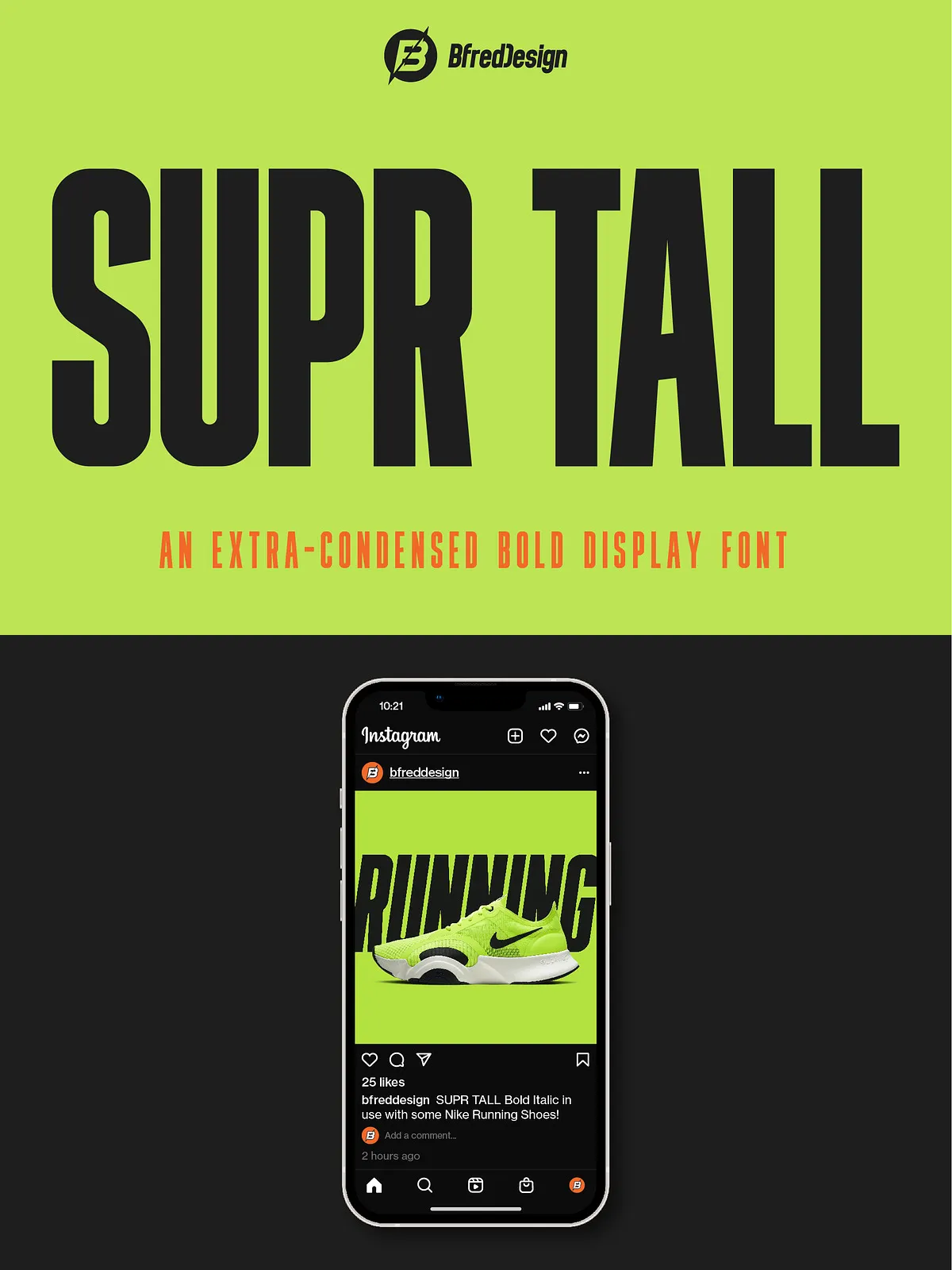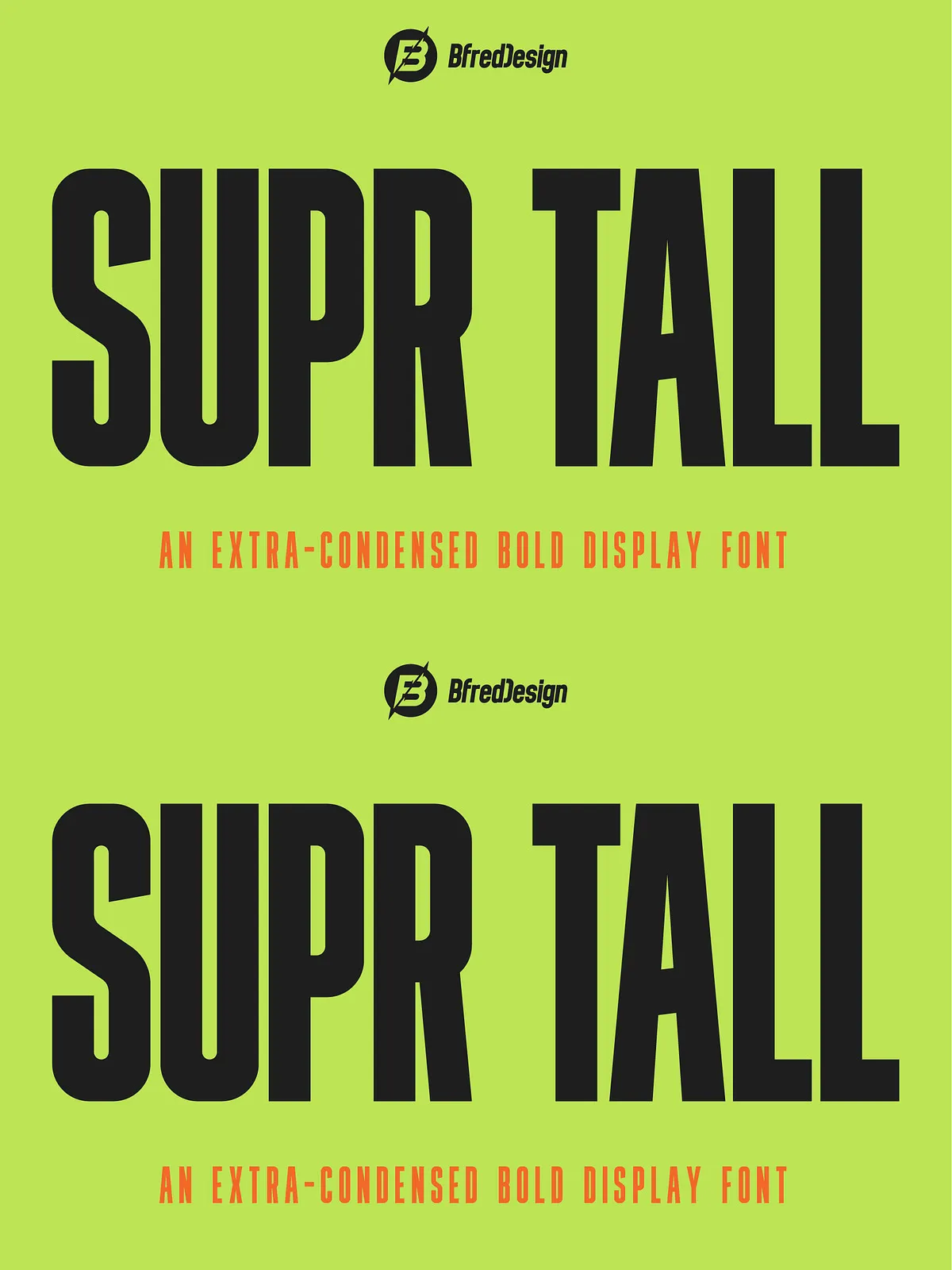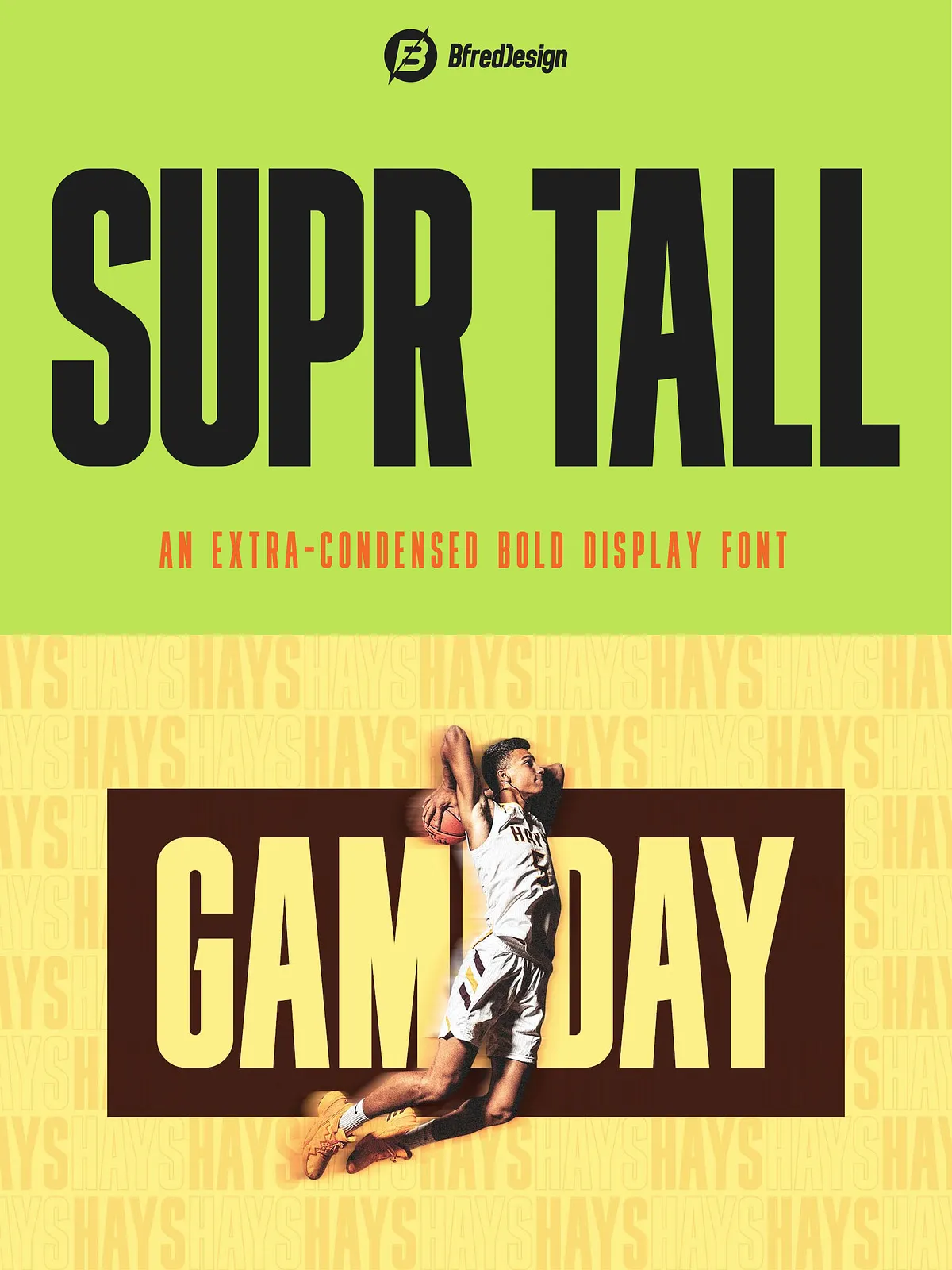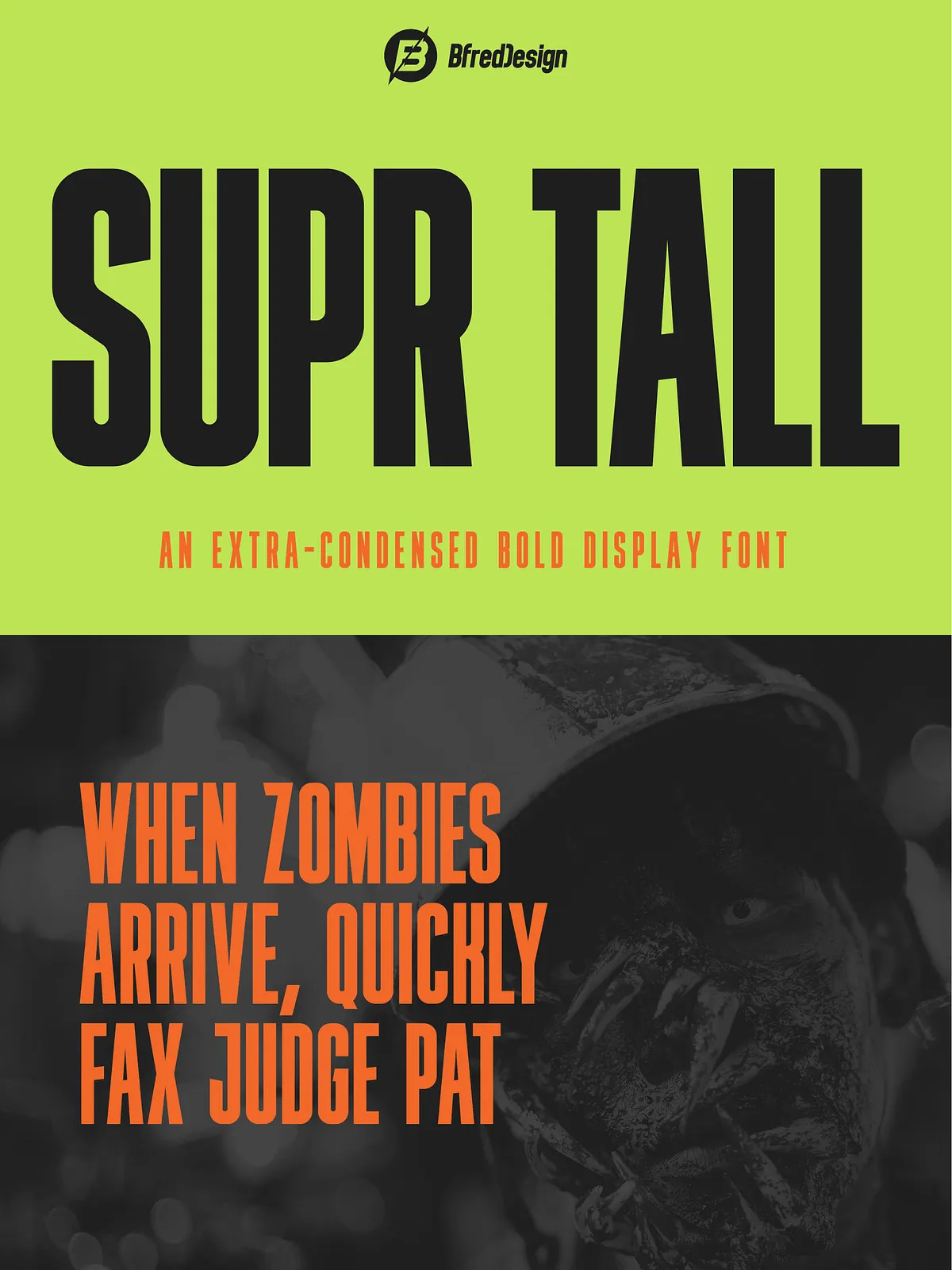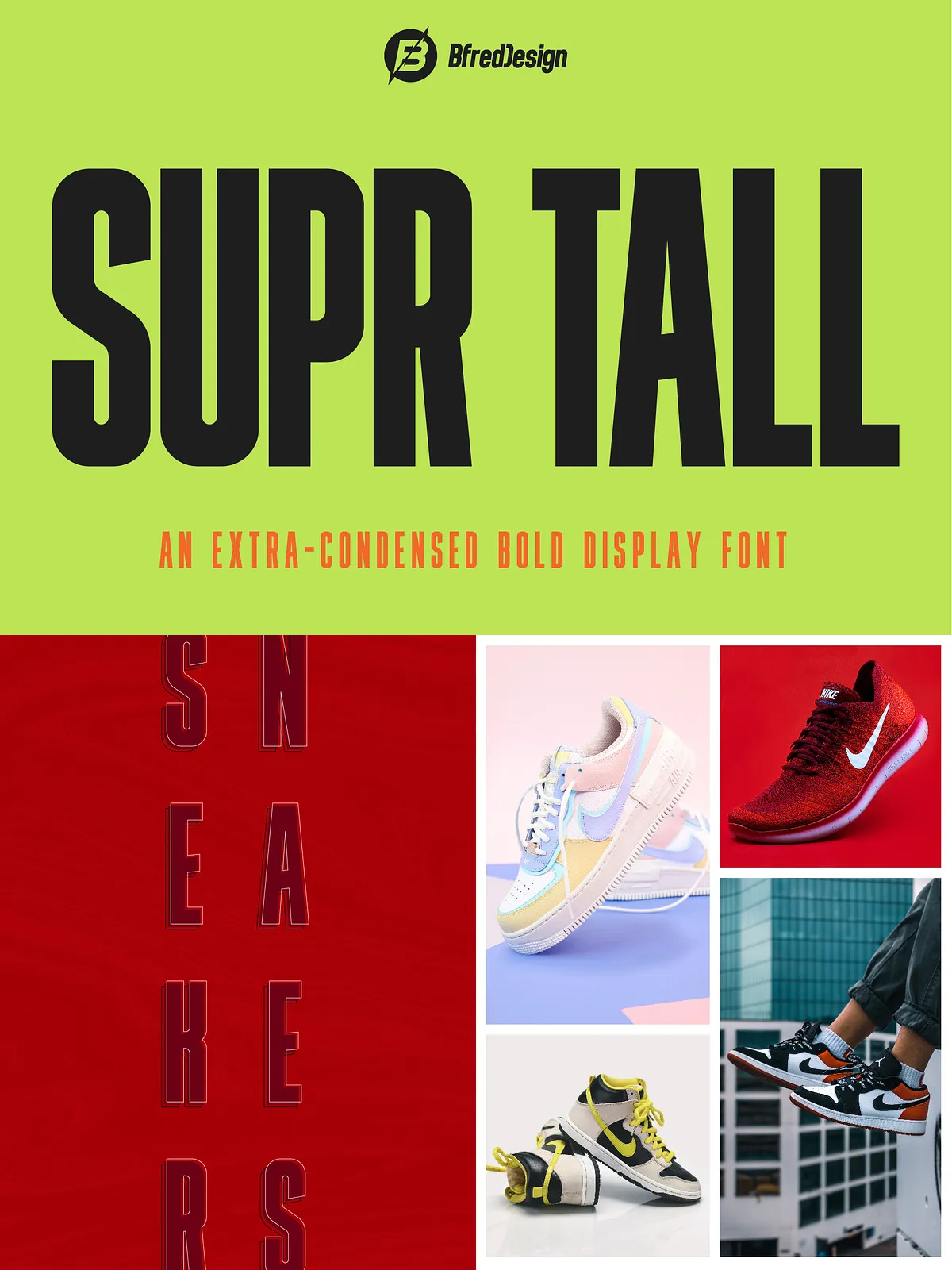
SUPR TALL is an extra-condensed addition to the SUPR Font Family. By making this font even more condensed, it allows you to create larger type in smaller spaces. It’s perfect for sports graphics, posters, editorial titles and headlines, etc. How you end up using it is totally up to you!